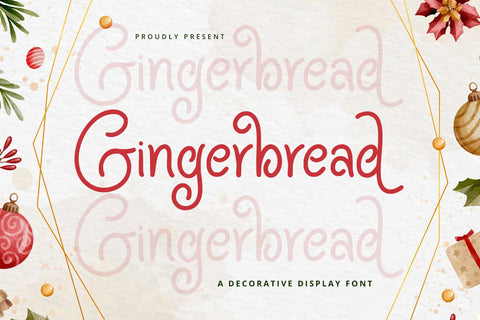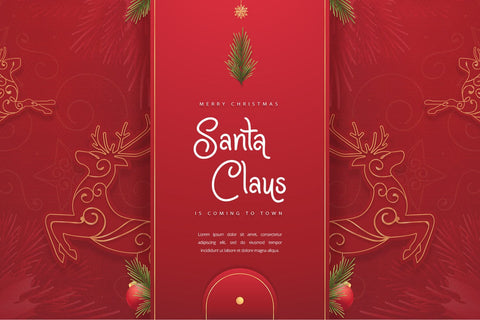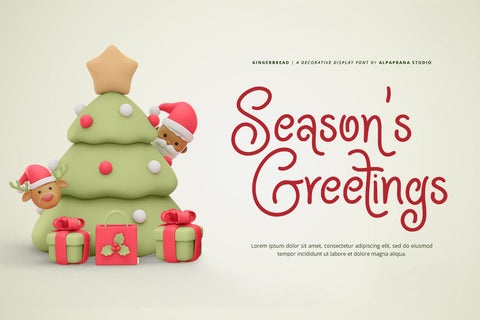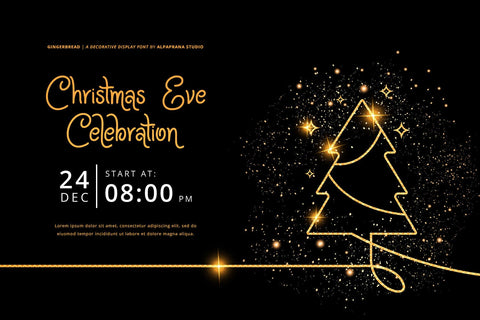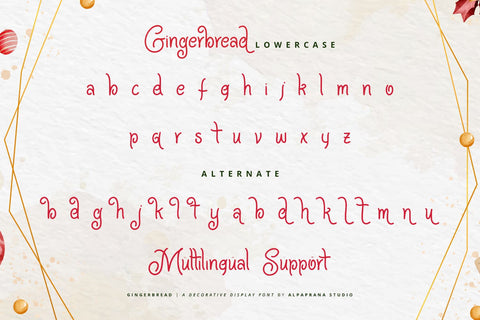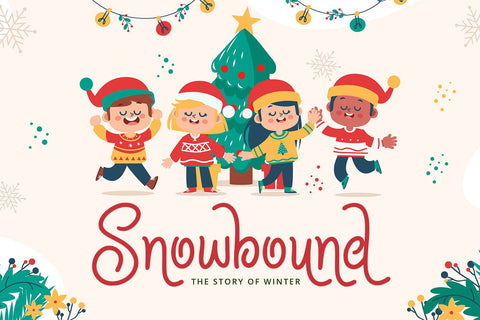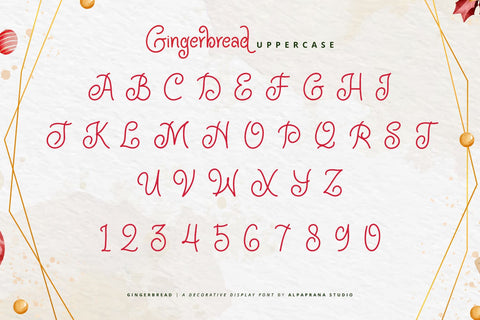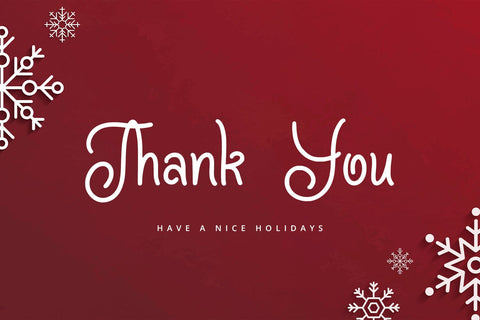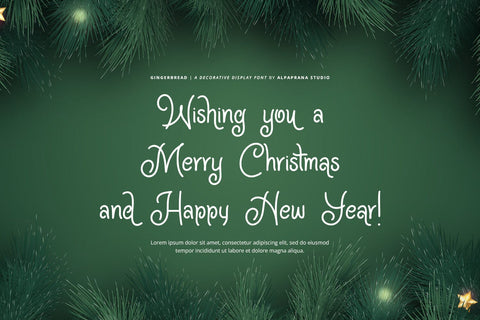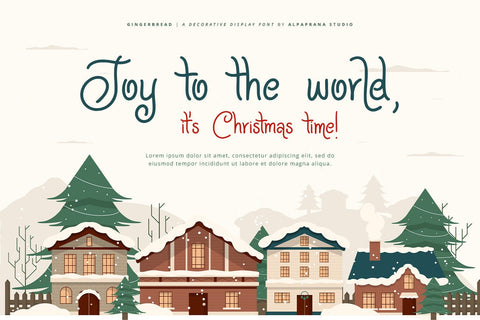
Gingerbread - Display Font
Gingerbread is a display font with cute and unique style. It will be perfectly used for Branding, Logo Design, Lettering, Logotype, Clothing, Poster, magazine, packaging, posters, shopping bags, t-shirts, book covers, photography, special events and other design project.